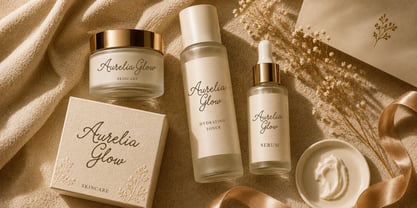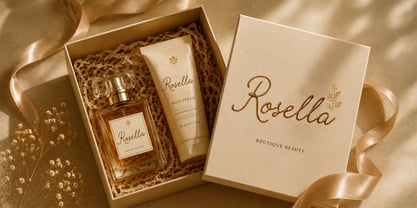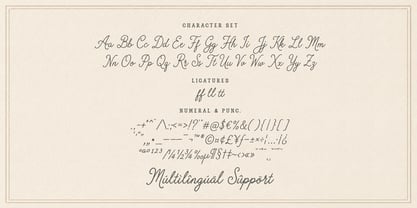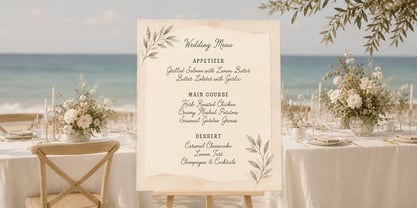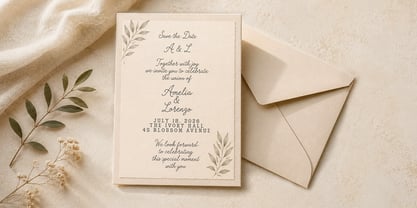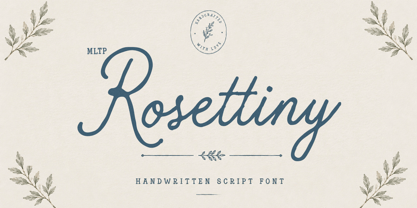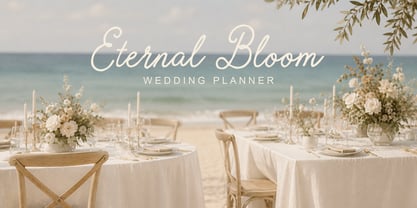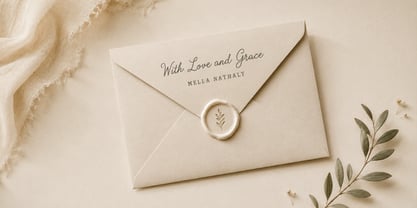
MLTP Rosettiny
by Multype Studio
The MLTP Rosettiny Font Family was designed by Mulia Yanto and published by Multype Studio. MLTP Rosettiny contains 1 styles. More about this family
Introducing MLTP Rosettiny, a charming and elegant script font that blends timeless calligraphy with modern sophistication. Designed with graceful curves, flowing connections, and delicate handwritten details, MLTP Rosettiny is perfect for creating refined and memorable typography across a wide range of creative projects.
Whether you're designing luxury branding, wedding invitations, beauty packaging, fashion editorials, boutique logos, perfume labels, or social media content, MLTP Rosettiny brings warmth, elegance, and personality to every design. Its smooth handwritten style offers a romantic and premium feel while maintaining excellent readability.
Featuring carefully crafted ligatures, MLTP Rosettiny allows you to create authentic handwritten compositions with beautiful letter connections that feel natural and effortless. Every character has been designed to deliver an elegant writing experience suitable for both professional designers and creative enthusiasts.
MLTP Rosettiny is the perfect choice for designers seeking an elegant handwritten script that feels luxurious, romantic, and timeless. Add a sophisticated touch to your creative projects with a font designed to leave a lasting impression.